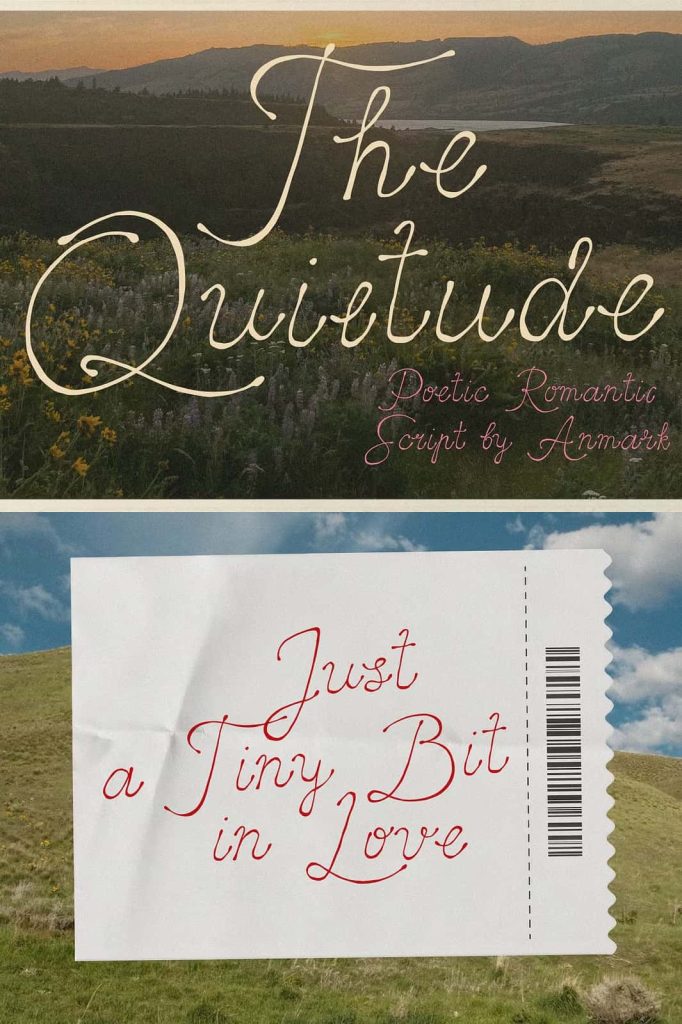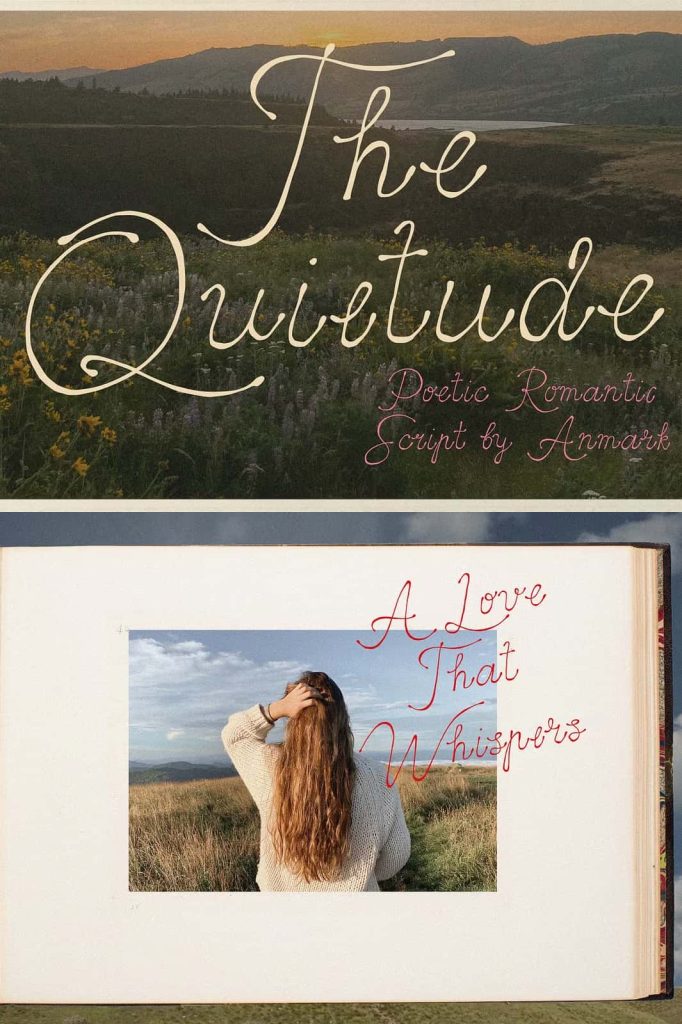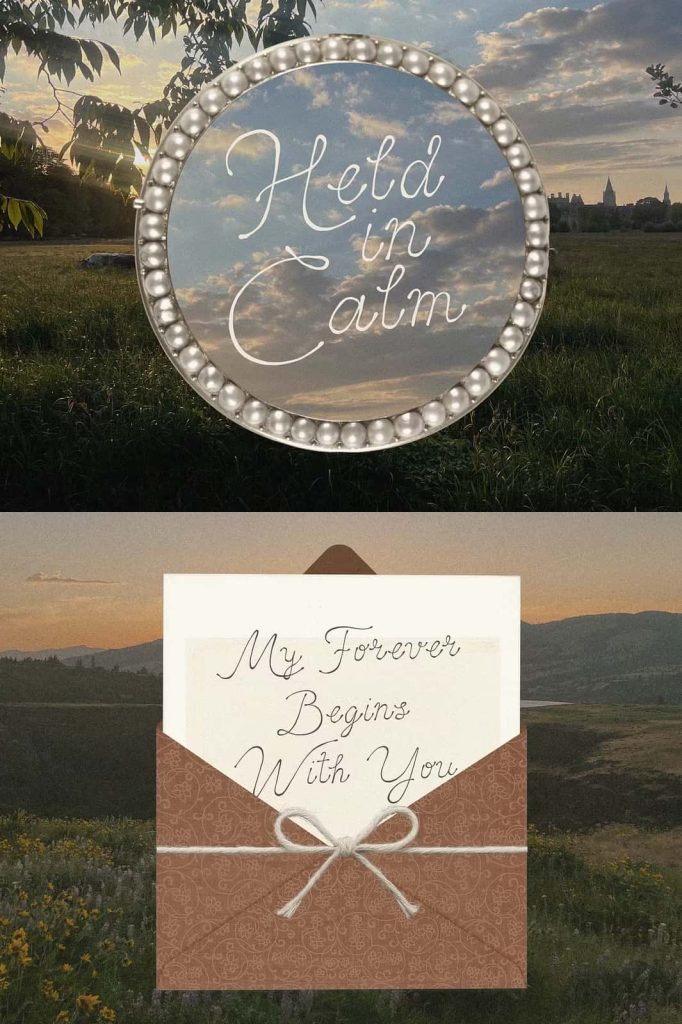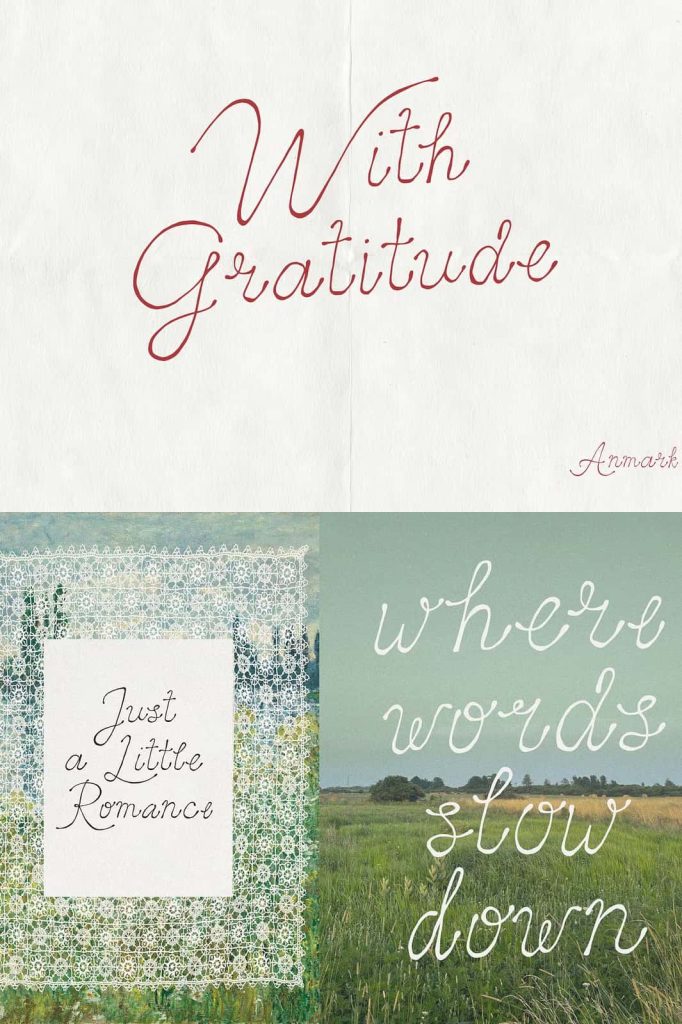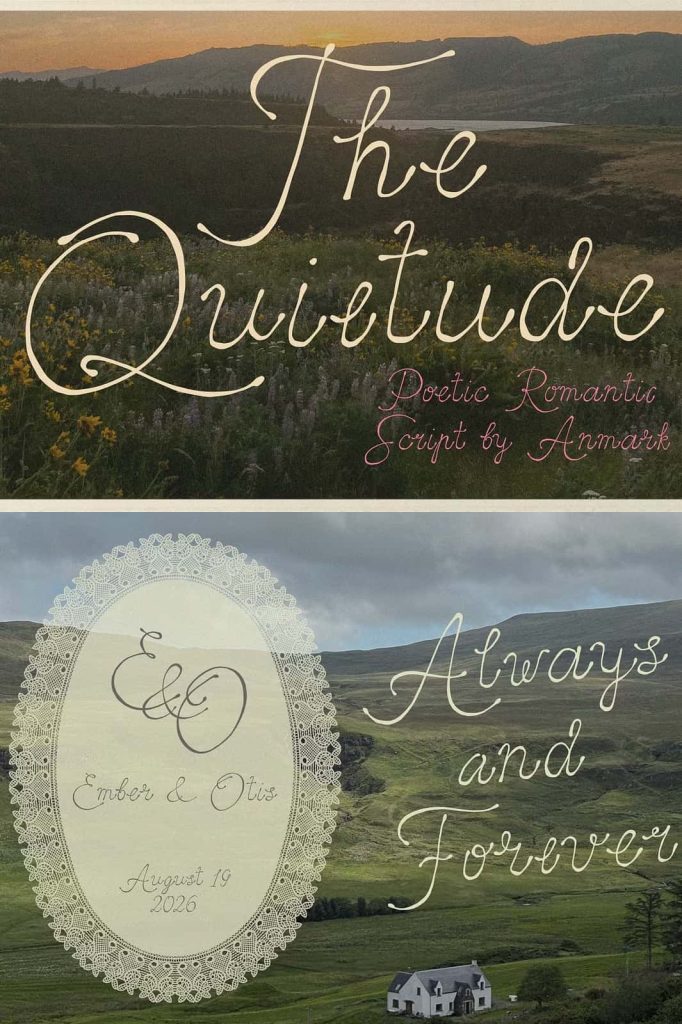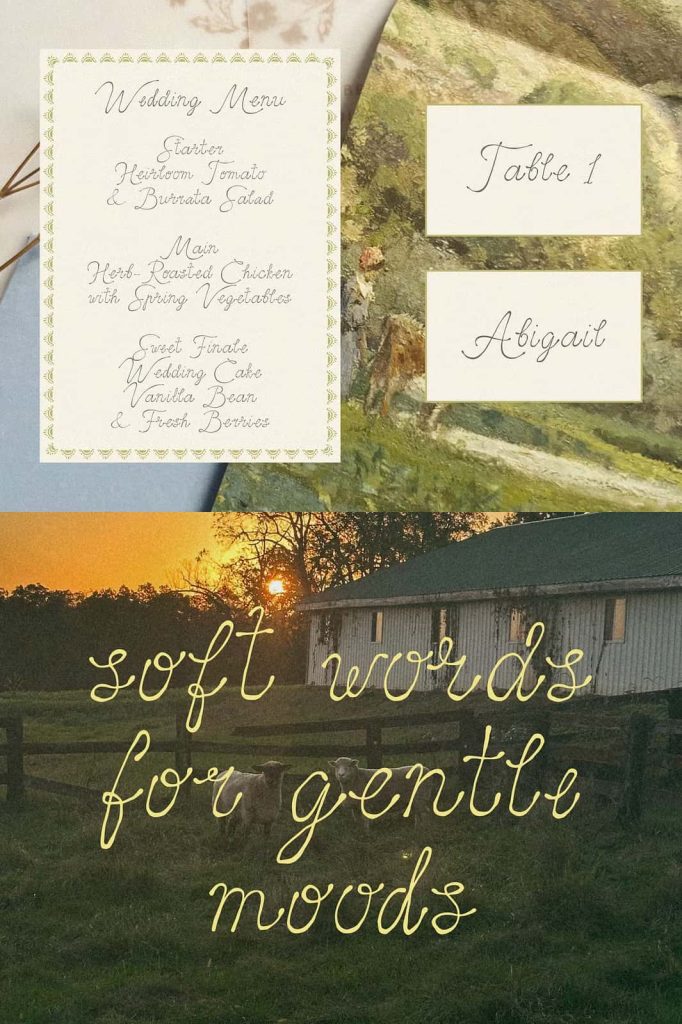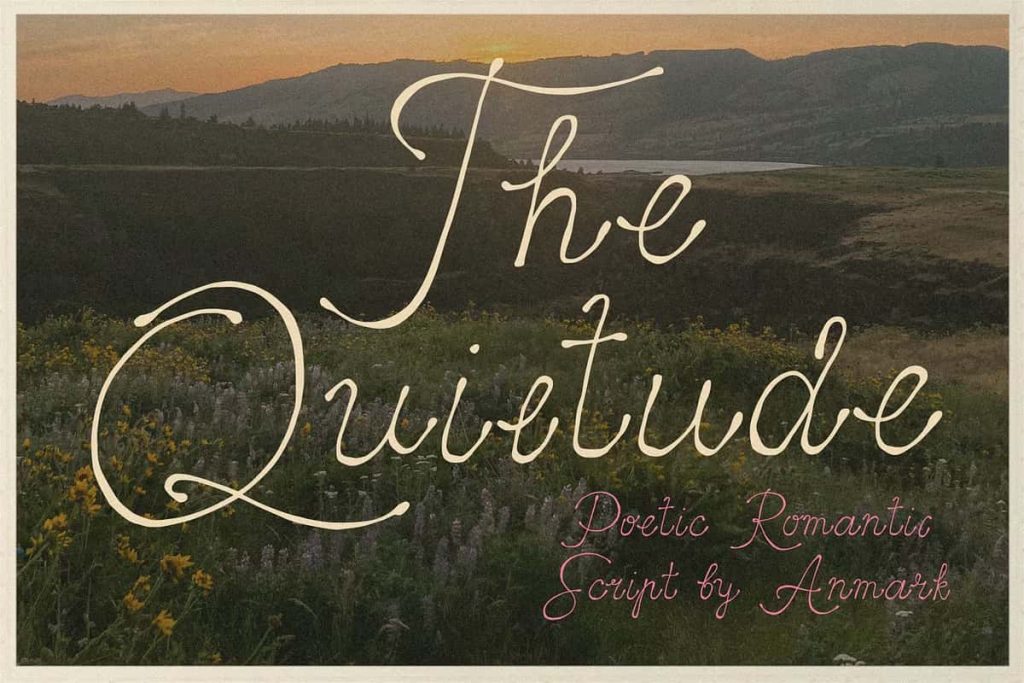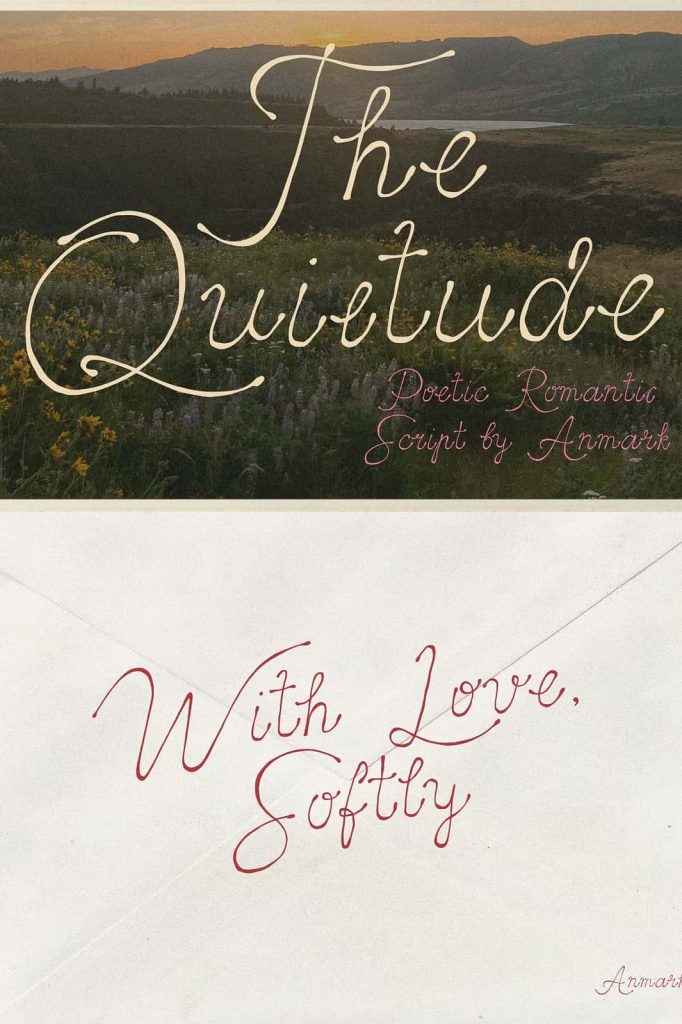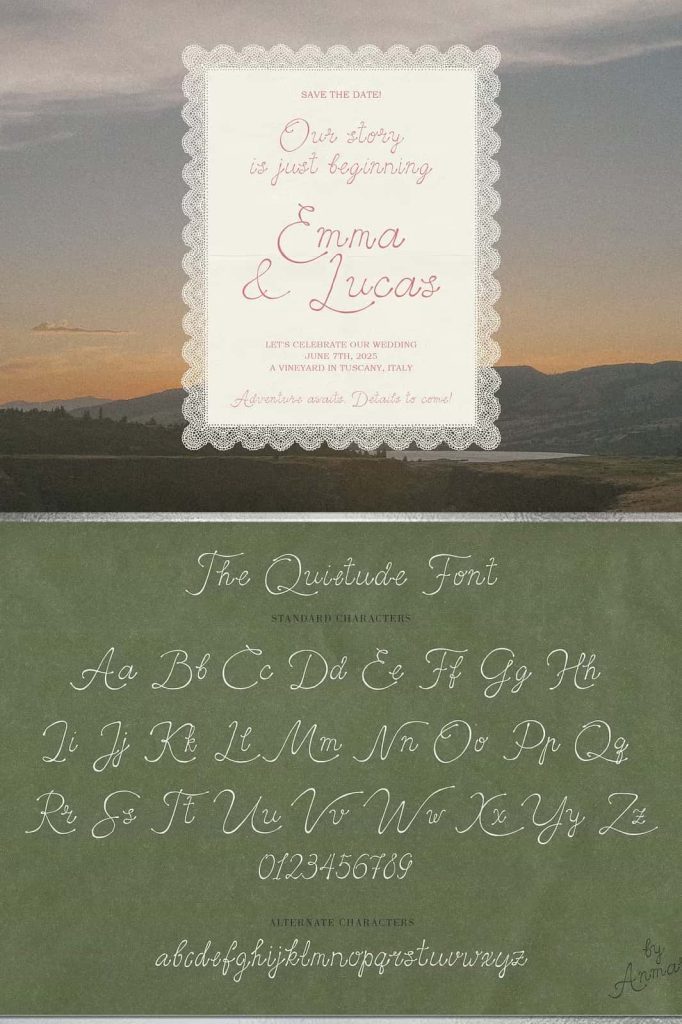
The Quietude Handwritten Script Font – A Romantic Typeface with Soft Feminine Elegance
The Quietude Handwritten Script Font is a beautifully crafted typeface that captures the essence of romance, warmth, and personal expression. Designed with delicate handwritten strokes and graceful curves, this font brings a gentle and authentic character to every project. Inspired by intimate handwritten letters, heartfelt emotions, and the growing appeal of poetcore aesthetics, The Quietude creates typography that feels meaningful, artistic, and emotionally engaging.
Unlike conventional script fonts that focus solely on decoration, The Quietude embraces natural handwriting characteristics to create a genuine and inviting visual experience. Its flowing forms and carefully balanced details evoke a sense of nostalgia while maintaining a refined appearance suitable for contemporary design. Whether used for branding, invitations, social media graphics, product packaging, or creative storytelling, this typeface helps designers communicate sincerity and elegance through typography.
The Quietude is more than just a font. It is a visual expression of calmness, beauty, and individuality that transforms simple words into memorable design elements.
Inspired by Intimate Letters and Genuine Emotions
The Quietude draws inspiration from the timeless beauty of personal correspondence. Handwritten letters have long been associated with authenticity, affection, and emotional connection, and this font successfully captures those qualities through its carefully designed letterforms.
Each character reflects the natural rhythm of handwriting, creating a sense of intimacy that feels personal and relatable. The font communicates warmth and sincerity, making it particularly effective for projects that aim to establish an emotional connection with audiences.
Whether you are designing wedding stationery, personal branding materials, greeting cards, or meaningful social media content, The Quietude helps convey messages with grace and heartfelt authenticity.
Soft Feminine Style with Timeless Appeal
One of the defining characteristics of The Quietude Handwritten Script Font is its soft and feminine aesthetic. The smooth curves, elegant connections, and flowing strokes create a refined appearance that feels delicate without sacrificing readability.
The font’s graceful structure makes it suitable for projects that require sophistication and charm. Its feminine qualities enhance beauty-related branding, lifestyle content, fashion marketing, and luxury stationery while remaining versatile enough for a wide variety of creative applications.
By combining elegance with natural handwritten expression, The Quietude delivers a timeless design that remains visually appealing across changing trends and design styles.
Subtle Vintage-Inspired Character
The Quietude incorporates a subtle vintage influence that adds depth and personality to its overall appearance. Rather than relying on bold retro elements, the font introduces classic handwritten qualities that evoke a sense of nostalgia and enduring beauty.
This vintage-inspired character enhances the emotional impact of the typography while maintaining a fresh and contemporary feel. Designers can use The Quietude to create projects that celebrate tradition, storytelling, and timeless aesthetics without appearing outdated.
The combination of vintage charm and modern refinement allows the font to adapt effortlessly to both classic and contemporary design concepts.
Elegant Letterforms
The carefully crafted letter shapes create a smooth and harmonious flow, helping text appear natural and visually appealing across various design applications.
Authentic Handwritten Feel
The font captures the organic beauty of genuine handwriting, creating a personal and expressive typographic experience.
Balanced Vintage Influence
Subtle nostalgic details provide character and warmth while preserving the clean and sophisticated appearance needed for modern projects.
Perfect for Poetcore and Romantic Design Aesthetics
Poetcore aesthetics celebrate creativity, emotion, literature, and artistic self-expression, making typography an essential component of the visual style. The Quietude fits naturally within this design movement through its graceful handwriting and emotional presence.
Its poetic personality helps create visual narratives that feel thoughtful, dreamy, and deeply personal. Designers can use the font to enhance creative journals, poetry collections, artistic branding, editorial layouts, and social media content inspired by romantic storytelling and literary themes.
The Quietude brings an understated elegance that supports meaningful communication while maintaining a strong visual identity.
Versatile for Creative and Professional Projects
Although inspired by romance and personal expression, The Quietude remains highly versatile and adaptable. Its balanced design allows it to perform effectively across a wide range of creative and commercial applications.
- Wedding invitations and stationery
- Luxury branding and logo design
- Fashion and beauty marketing
- Greeting cards and personalized gifts
- Poetry books and editorial layouts
- Social media graphics and content creation
- Product packaging and labels
- Photography watermarks
- Lifestyle and wellness branding
- Website headers and promotional materials
- Creative journals and planners
- Handcrafted product branding
Its flexibility enables designers to maintain visual consistency across multiple platforms while preserving the emotional qualities that make the font unique.
Create Meaningful and Memorable Typography
Typography has the power to influence emotions and strengthen communication. The Quietude Handwritten Script Font helps designers create authentic visual experiences by combining beauty, warmth, and personal expression within a single typeface.
The natural handwriting style encourages deeper engagement with the content, allowing audiences to feel a stronger connection to the message. Whether used in branding, storytelling, invitations, or creative publications, The Quietude transforms ordinary text into expressive typography that resonates with viewers.
Its calm and graceful personality makes it particularly effective for projects that prioritize emotional storytelling and human connection.
Why Choose The Quietude Handwritten Script Font?
The Quietude Handwritten Script Font offers a unique blend of romantic elegance, vintage-inspired charm, and authentic handwritten character. Inspired by personal letters, gentle emotions, and poetcore aesthetics, this typeface provides a sophisticated solution for designers seeking typography with depth and personality.
From wedding invitations and luxury branding to editorial design, social media content, and creative storytelling, The Quietude adapts effortlessly to diverse creative needs. Its flowing curves, feminine style, and emotional warmth help elevate projects while maintaining exceptional readability and visual appeal.
Choose The Quietude Handwritten Script Font when you want to create typography that feels personal, expressive, and timeless. Its elegant design and heartfelt character make it an invaluable addition to any creative professional’s font collection.